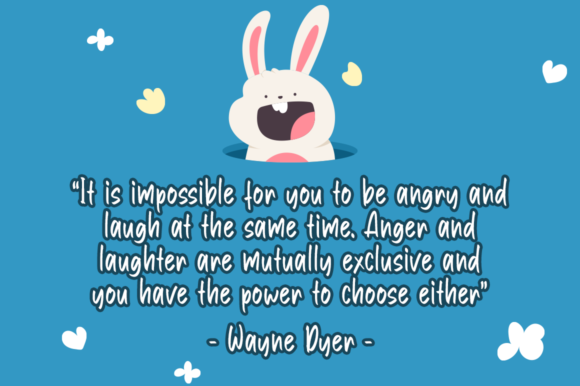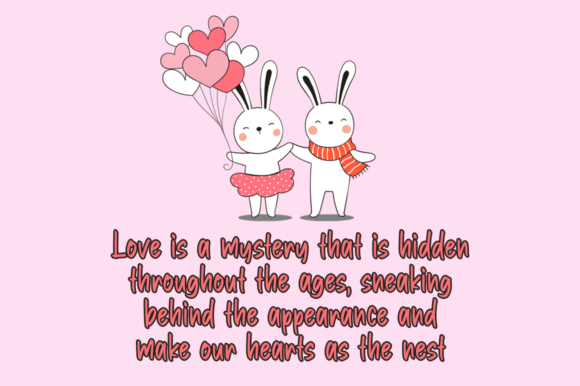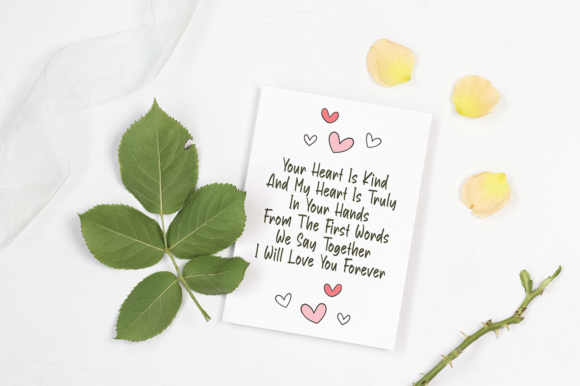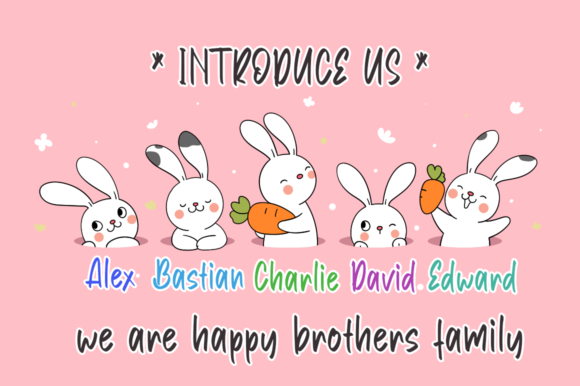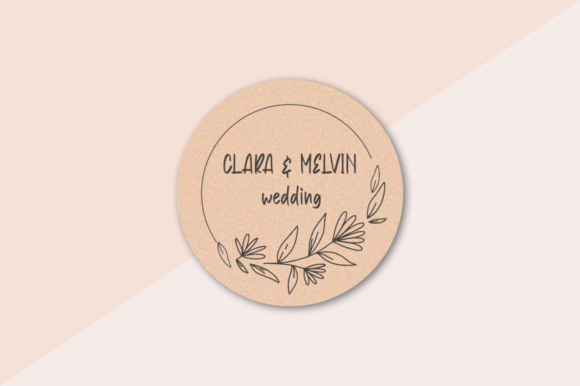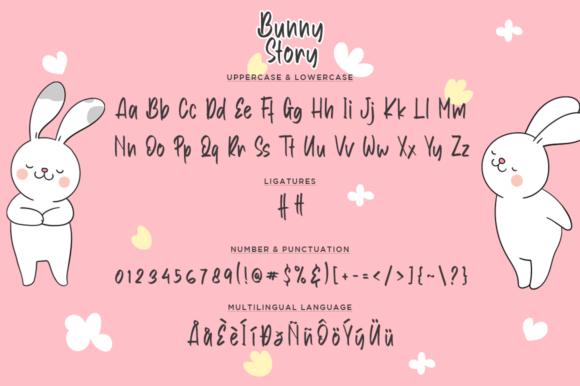
Bunny Story Font: Bringing Joy to Your Designs
Have you ever found yourself lost in the world of creative possibilities, unsure of where to begin? Perhaps you’ve been brainstorming ideas for a new project, flipping through inspiration boards and scrolling through social media for the perfect spark. And then, it hits you – the perfect idea. For designers, that moment is what makes all the hard work worth it.
That’s where Bunny Story Font comes in – a sweet and friendly handwritten font designed to bring a touch of warmth and personality to your designs. With its natural and unique style, this font is incredibly versatile, making it the perfect addition to a wide range of projects, from greeting cards to social media graphics. Whether you’re a seasoned pro or just starting out, Bunny Story Font is a valuable tool in your design arsenal.
Bunny Story Font Key Features
• Font Family: Bunny Story Font is a unique, handwritten font designed to evoke a sense of whimsy and playfulness.
• Character Set: Includes a wide range of characters, including uppercase and lowercase letters, numbers, and punctuation marks.
• Unique Characteristics: Bunny Story Font features a distinctive, hand-drawn style with subtle imperfections, giving it a natural and organic feel.
Bunny Story Font Review
The Bunny Story Font is a playful and whimsical typeface that’s sure to bring a smile to your face. I love the ✨ creative flair and attention to detail that went into designing this font. The designer’s use of bold lines and rounded shapes creates a sense of friendliness and approachability.
Here are some things that work well about the Bunny Story Font:
• ✨ Unique and recognizable design that sets it apart from other fonts.
• ✨ Great for use in children’s books, nursery decor, and other projects that require a playful touch.
• ✨ Good legibility, even at smaller font sizes.
• ⚠️ Limited character set, which may make it difficult to use in longer blocks of text.
• ⚠️ Not suitable for use in formal or professional contexts, as it may come across as too whimsical.
Overall, I think the Bunny Story Font is a fun and creative choice for the right project. While it may not be the best option for every use case, it’s a great addition to any designer’s toolkit. With a little creativity and imagination, the possibilities are endless!
Tips for Getting the Most Out of Bunny Story Font
To get the most out of Bunny Story Font, try the following:
• Use it in conjunction with playful and colorful graphics for a whimsical look.
• Experiment with different font sizes and colors to create visual interest.
• Combine Bunny Story Font with other fonts for a unique and eclectic look.
Bunny Story Font is perfect for:
• Children’s book illustrations.
• Party invitations and decorations.
• Whimsical greeting cards.
• Play